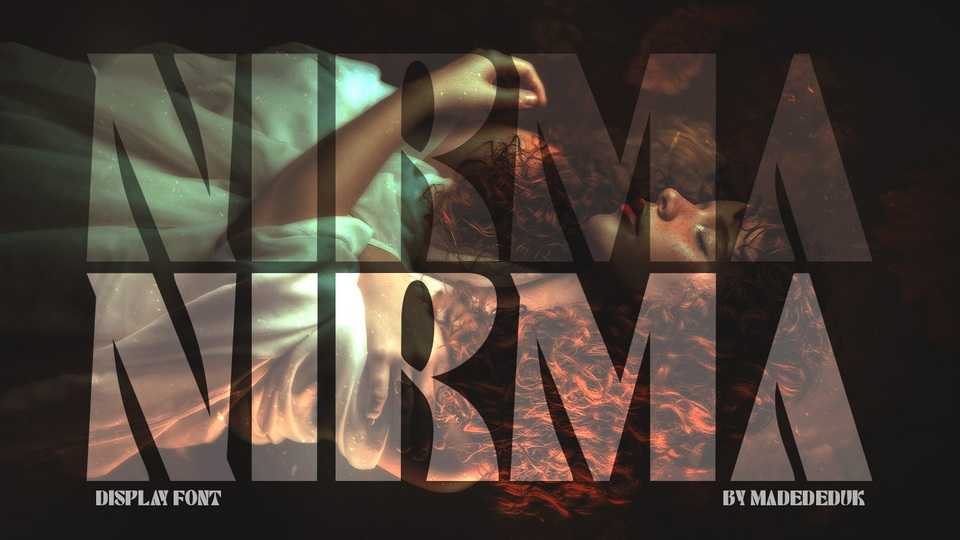
Download Nirma font, a bold display typeface for impressive design. Use Nirma font for any branding, product packaging, invitation, quotes, t-shirt, label, poster, logo etc.